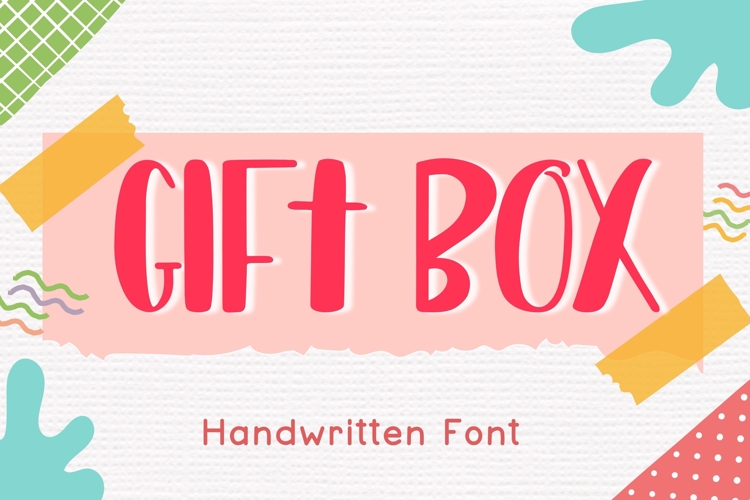
Gift Box is a cute handwritten display font designed for crafters, teachers, and creative makers.
Its tall, playful letterforms are perfect for adding personality to gift tags, greeting cards, stickers, classroom resources, party decorations, mugs, tote bags, t-shirts, and Cricut or Silhouette projects.
This font works beautifully for birthdays, holidays, Christmas gifts, baby showers, and everyday DIY crafts.